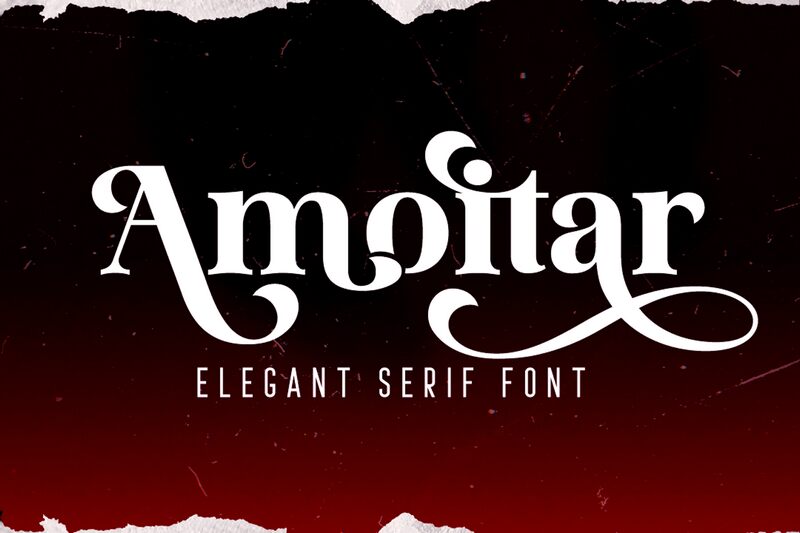
Amoitar-Regular
Amoitar, an exquisite creation by 177Studio, is a remarkable elegant serif font that exudes sophistication and refinement. Its semi-bold weight adds a touch of boldness while maintaining its refined appeal. Perfect for fashion editorials, luxury branding, and high-end invitations, Amoitar commands attention with its timeless elegance. Its clean lines and graceful curves make it suitable for elegant wedding stationery, captivating book covers, and prestigious corporate identities. With Amoitar's versatility and charm, it effortlessly elevates any project to new levels of class and desirability. Let this extraordinary font captivate your audience with its sheer beauty and charm.